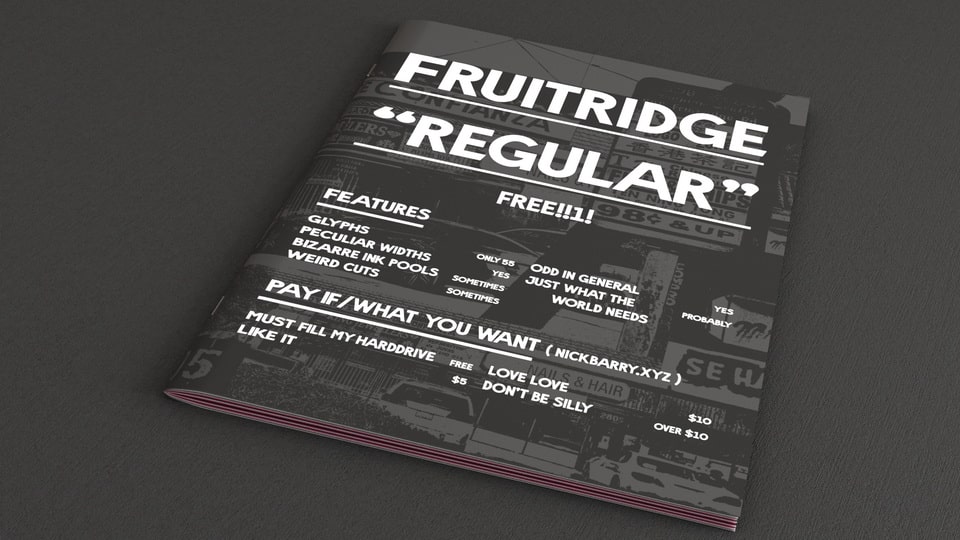
Download NTF Fruitridge font, a sans serif typeface inspired by the rich color and history of Fruitridge Road, Sacramento. NTF Fruitridge is a new eclectic “throwaway” typeface offers up more personality than it does rhyme, reason, or best practices.